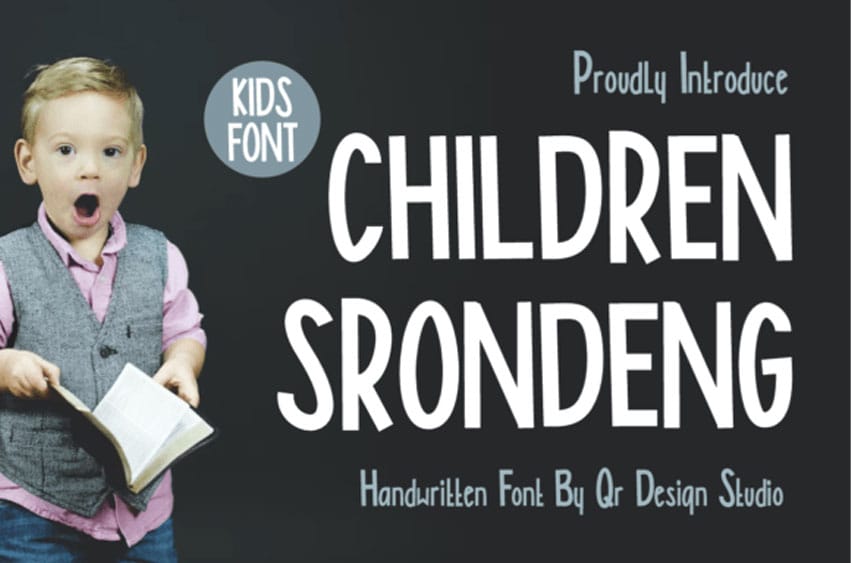
Children Srondeng Font is a bold and authentic display font. This font uses a simple but modern style, which you can use for your needs, such as child posters, product names, and other uses.